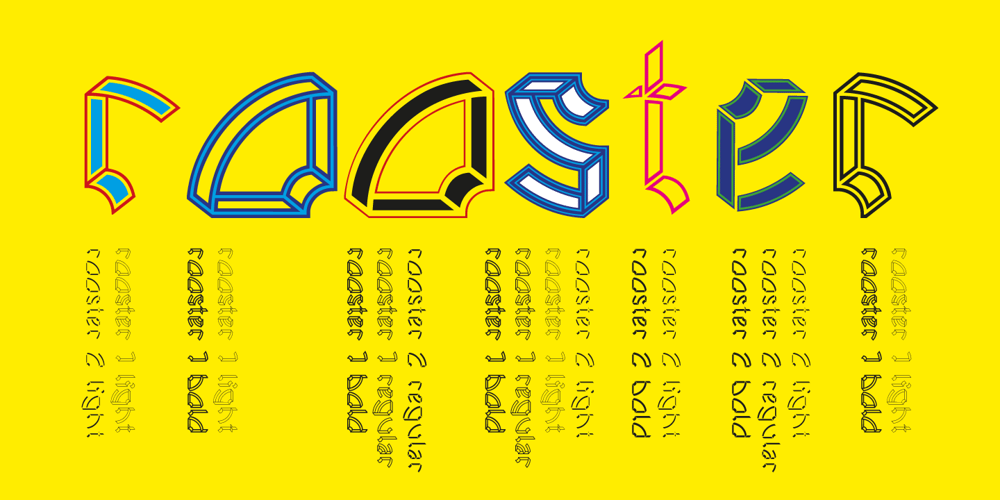
Ps Rooster 2 Font Family was designed by Peter Slager and published by Fontopia. Ps Rooster 2 contains 3 styles and family package options. Rooster Families are based on a ventilation grill. All the individual characters are isolated from this form. Rooster 1 and Rooster 2 can be combined with each other.